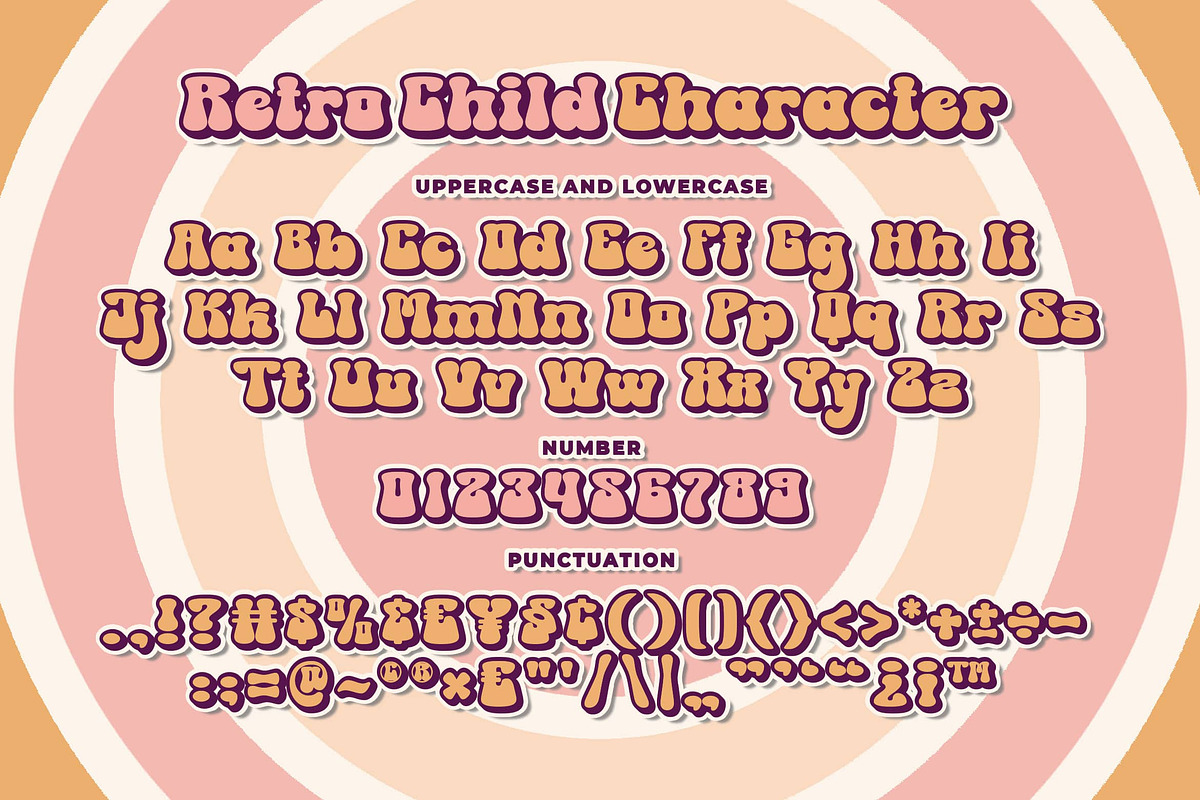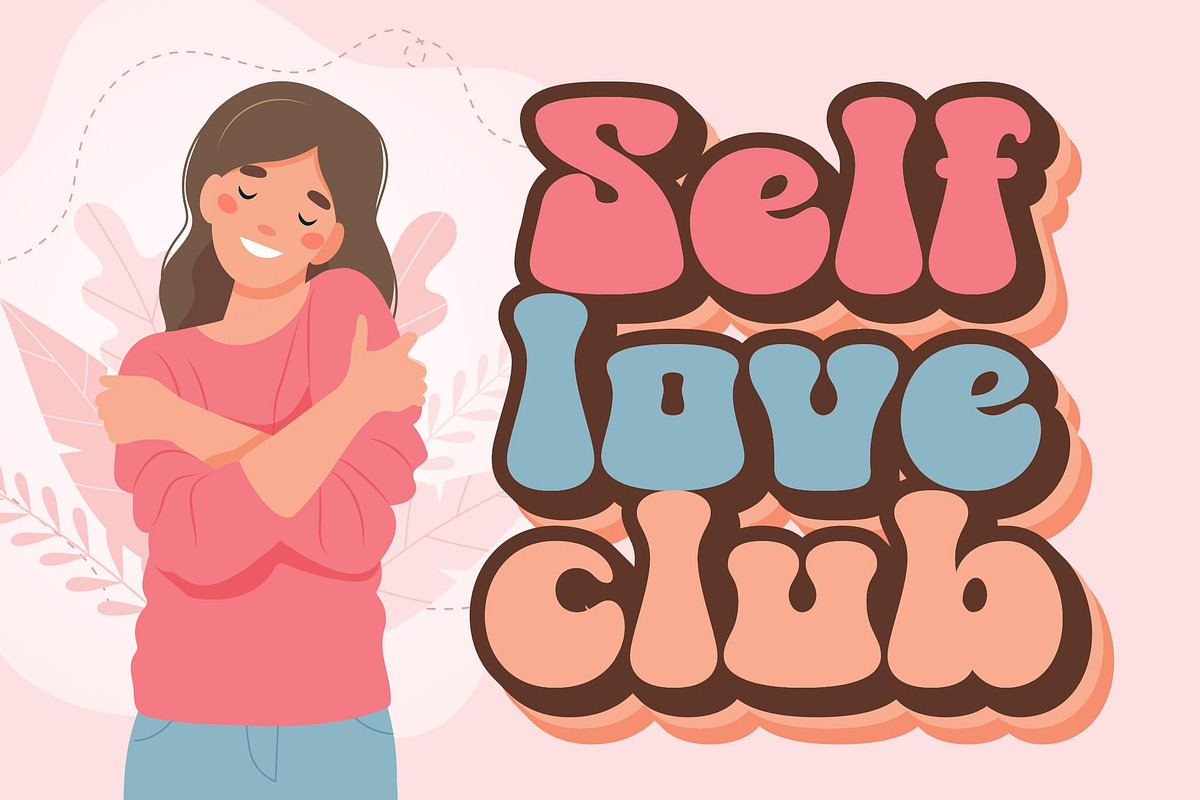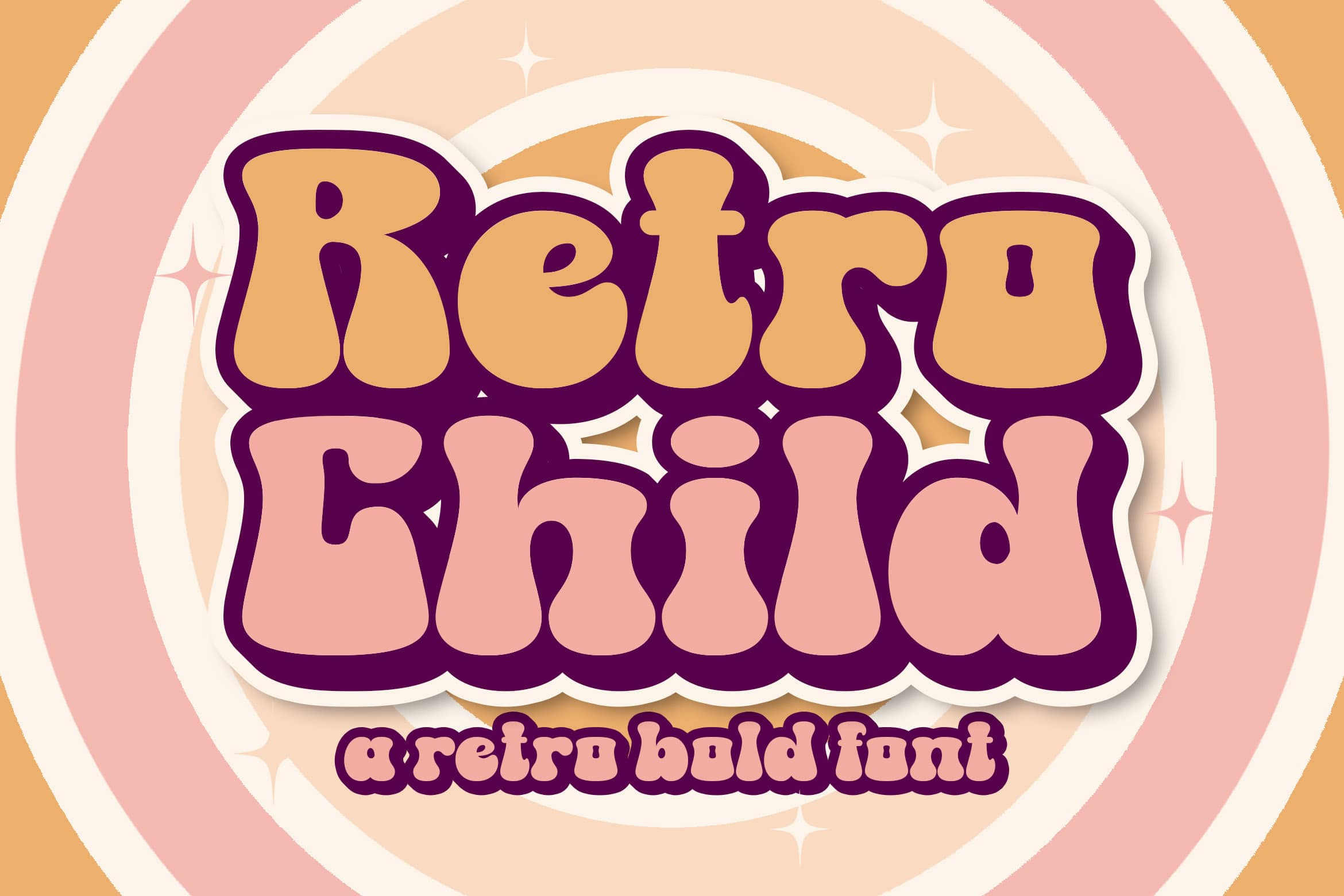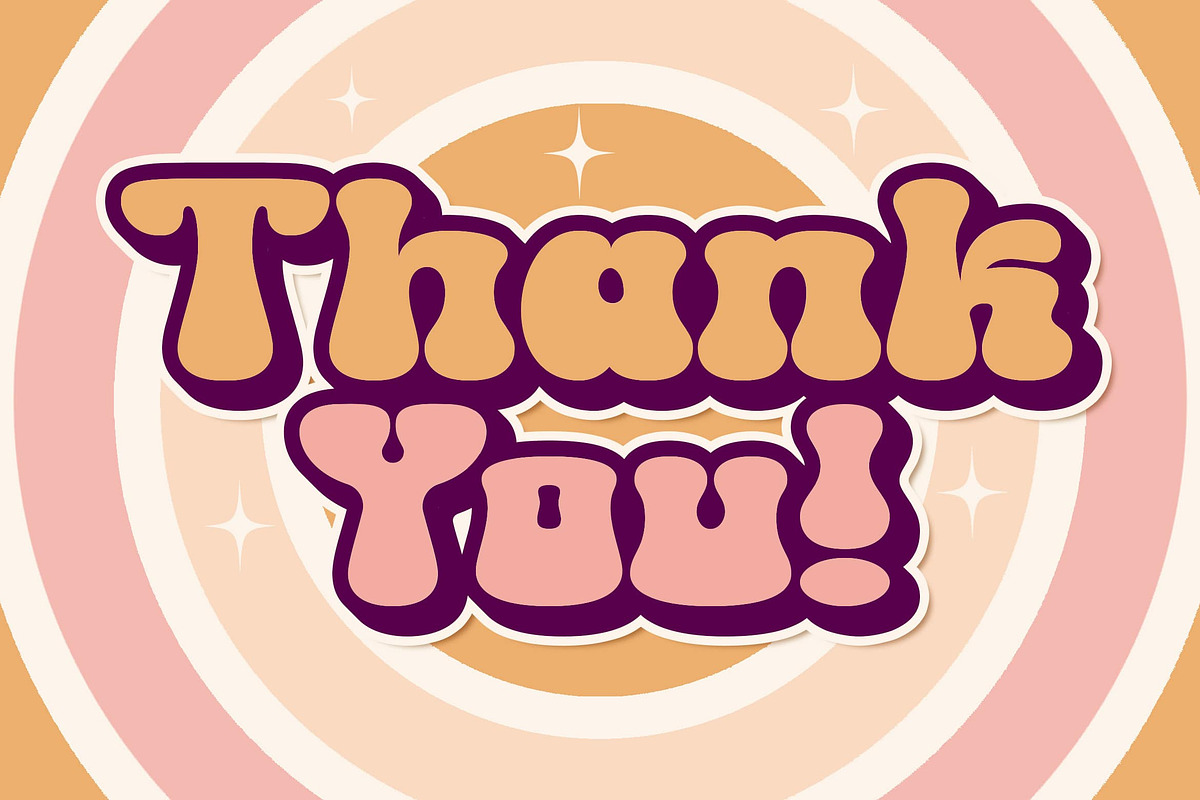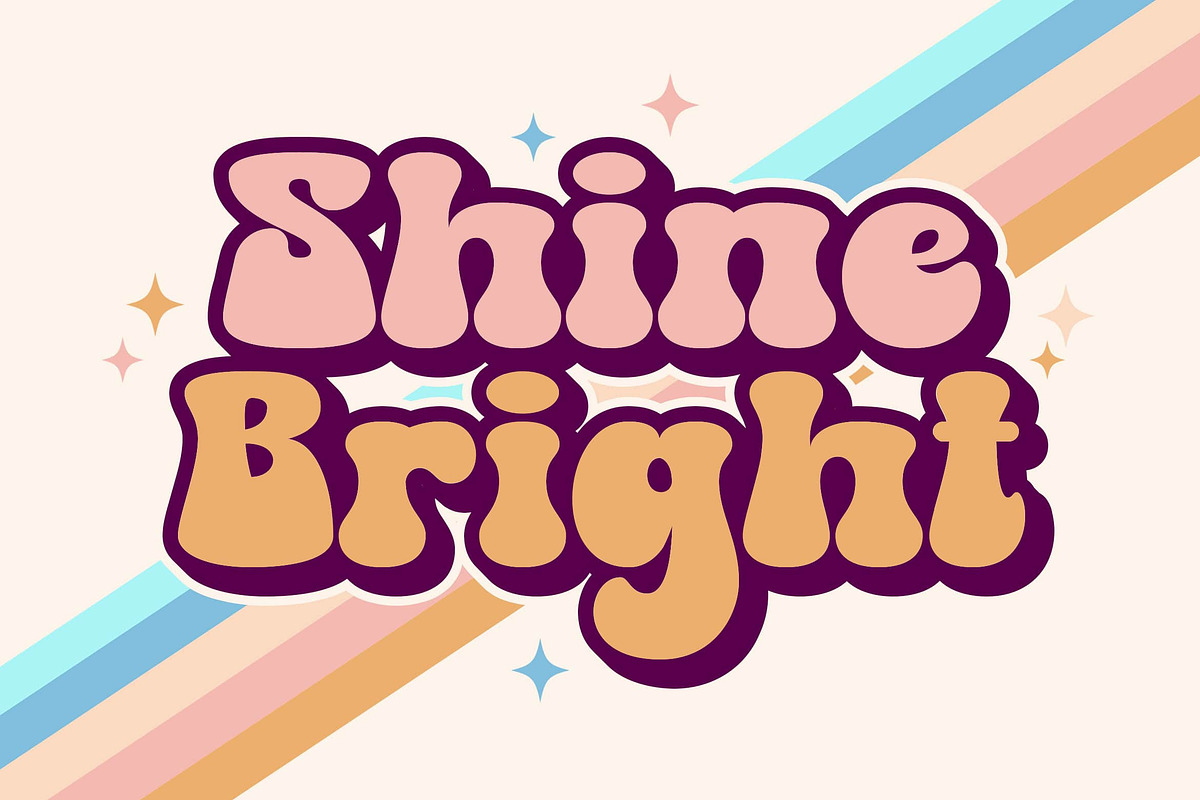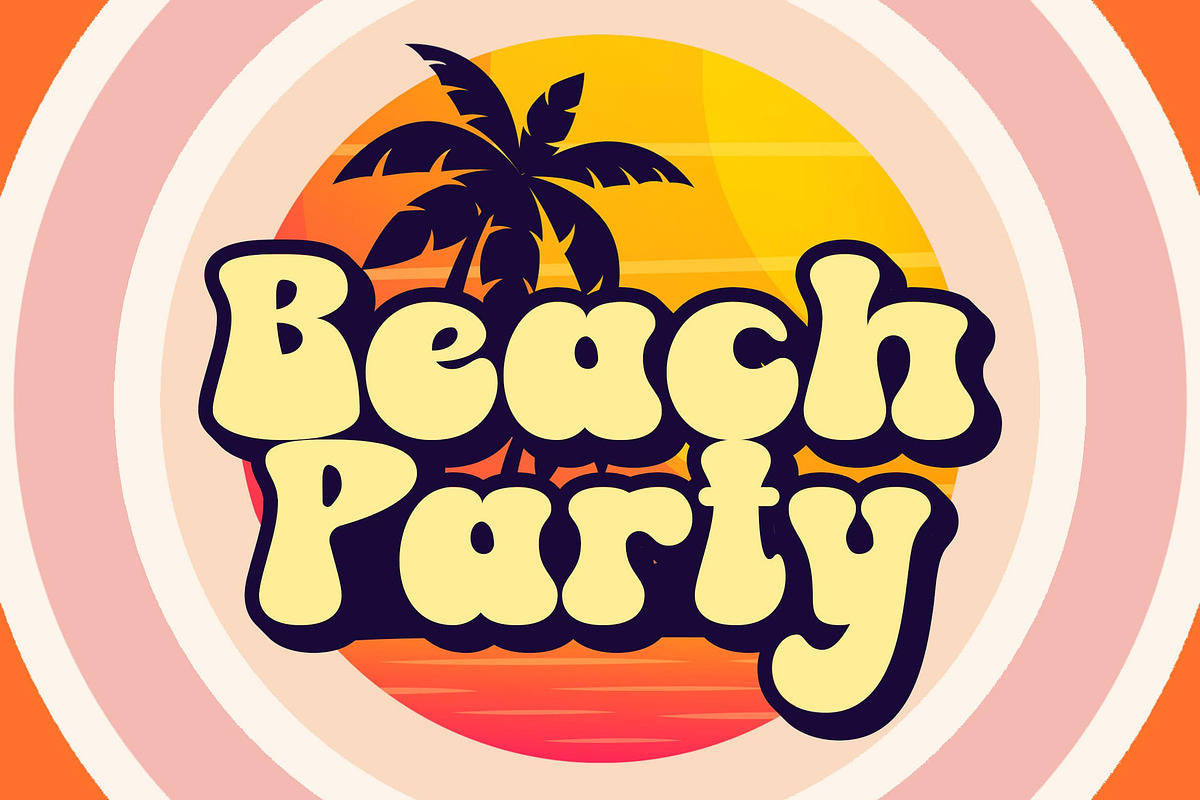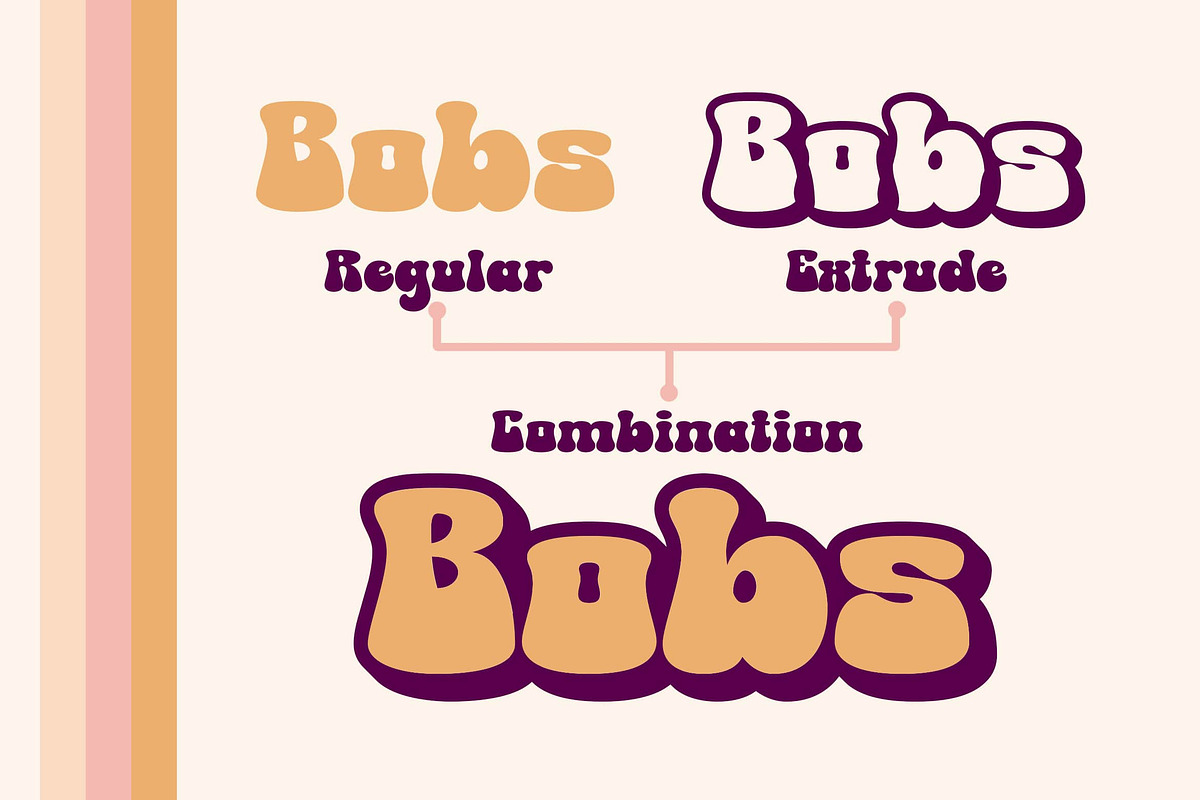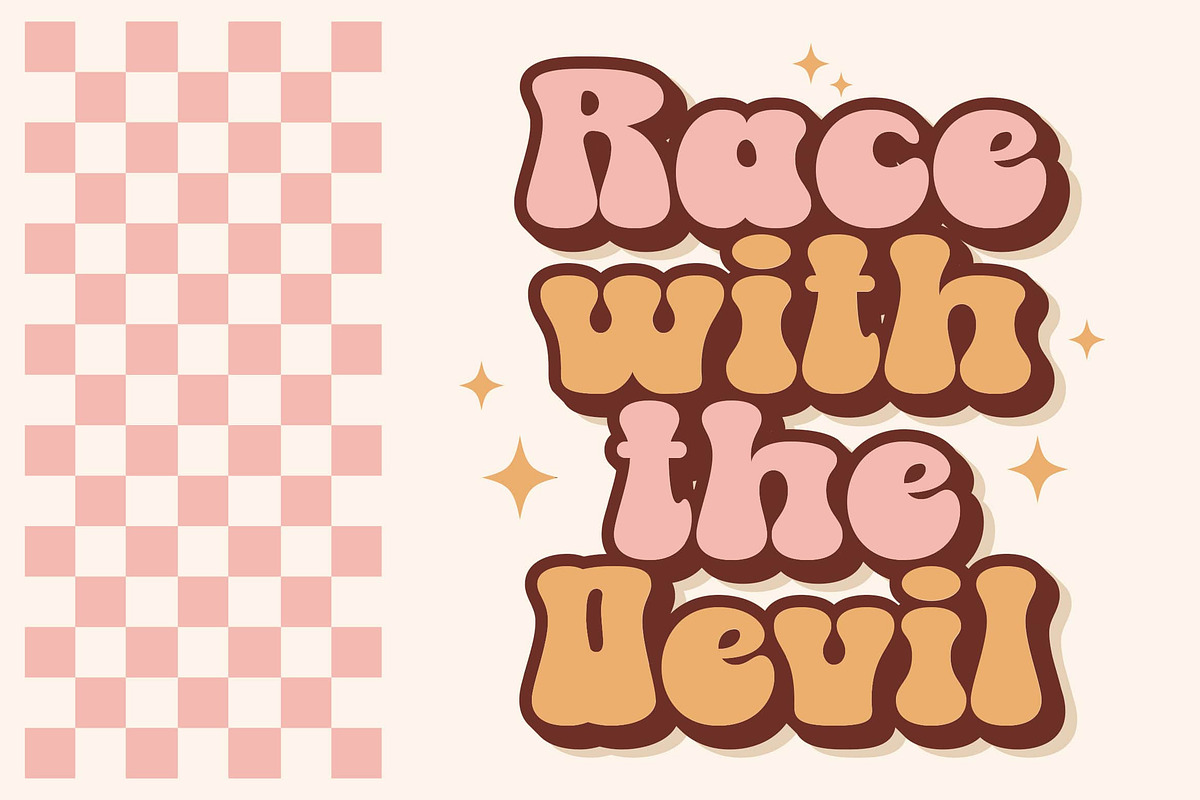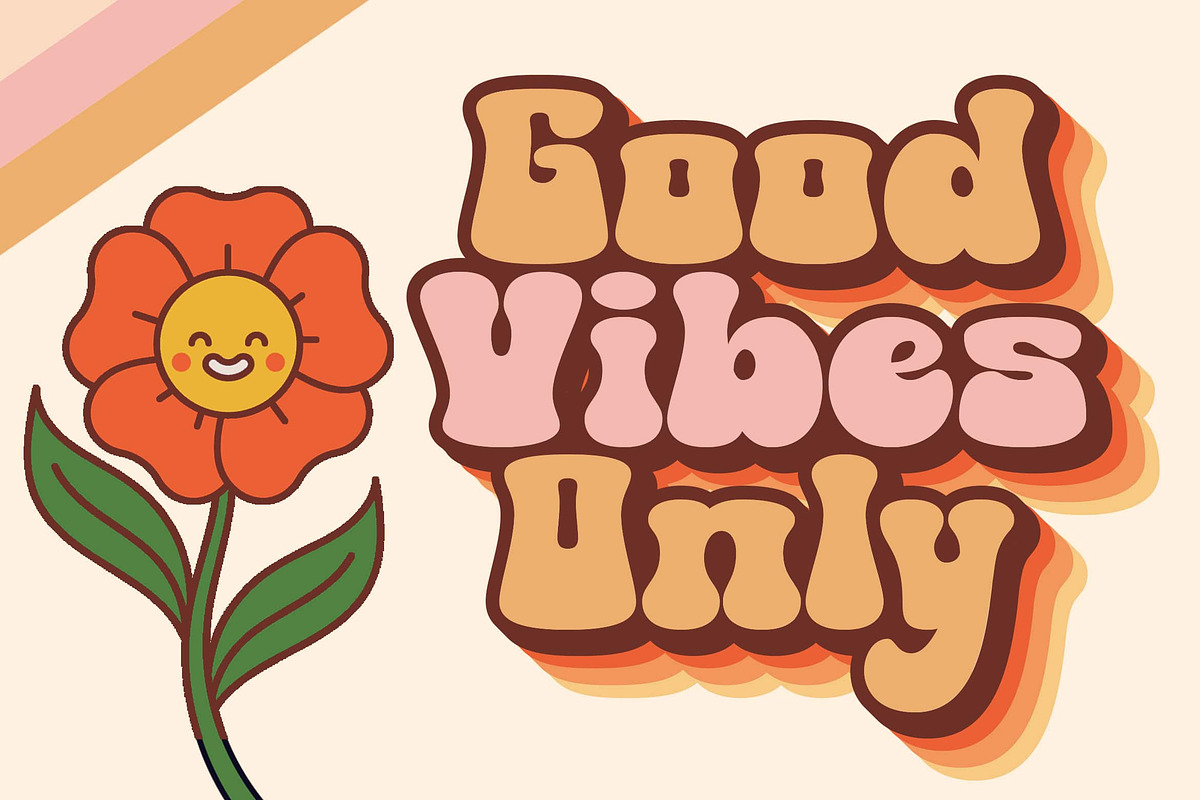
Retro Child a Retro Bold Font
Are you looking for a retro font? Do you want of creating Something that stand out and inspire creativity, imagination, and endless fun? Wait no more, we will give you the best choice.
Retro Child a Retro Bold Font
Retro Child a Retro Bold Font, Inspiring from retro bold typography. This font is perfect for a design that makes it more attractive and playful. made with a very good level of aesthetics making this font suitable for book cover, poster, packging, merchandise, logotype and much more.